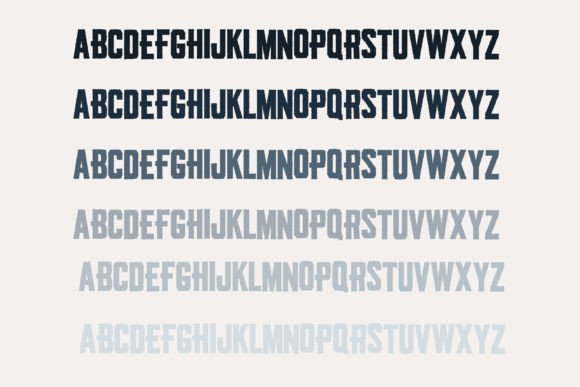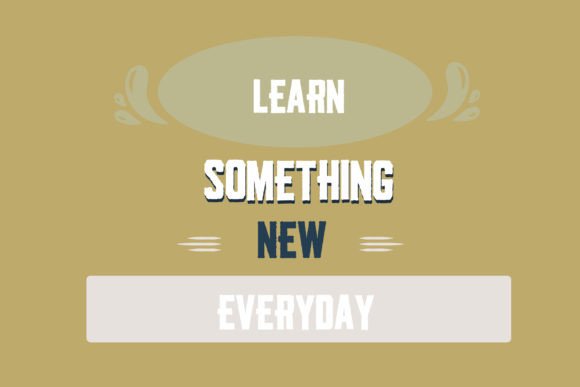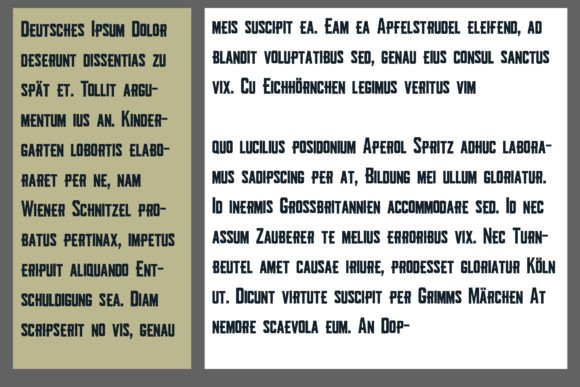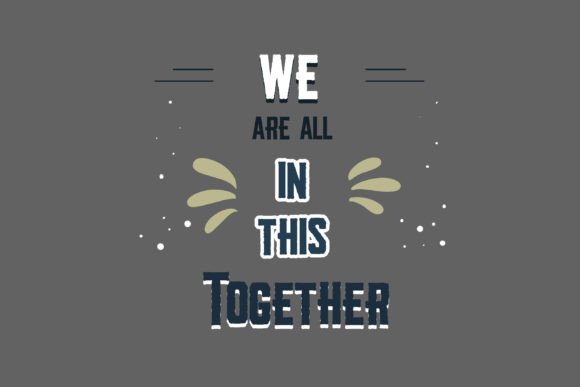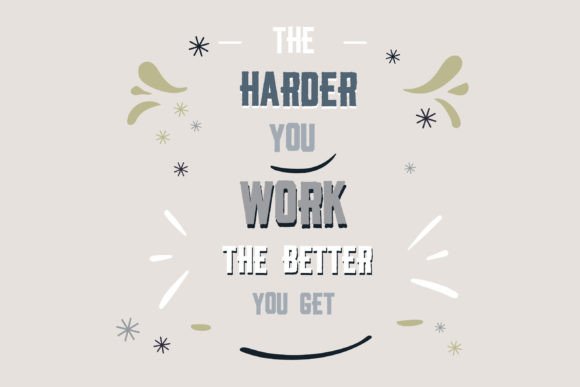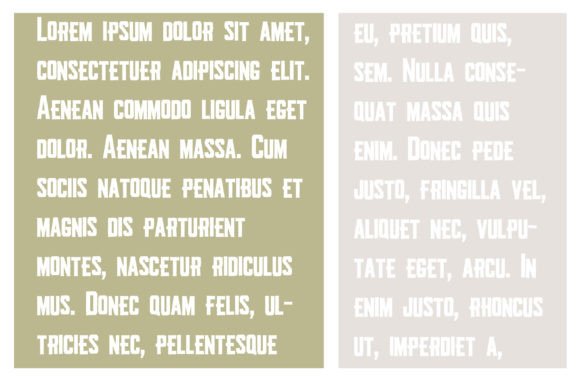
The Winning Design: Battlefield Font Takes Center Stage
Remember the rush of excitement when your favorite team scores a winning goal? The thrill of the crowd, the roar of the fans, and the sense of pride that comes with being part of a team – it’s a feeling that’s hard to beat. For designers, capturing that energy and intensity on a poster, jersey, or logo is a challenge that requires the perfect font. That’s where Battlefield Font comes in – a bold, energetic sans serif font designed specifically for sports.
With its rugged texture and strong lines, Battlefield Font adds depth and intensity to any text, making it the perfect choice for designers looking to create eye-catching designs that stand out on any playing field. Whether you’re working on a team logo, a poster, or a jersey, Battlefield Font is a valuable asset that’s sure to bring your design to life.
Battlefield Font Key Features
- Unique Characteristics: The Battlefield Font features a distinctive, bold, and modern design, making it ideal for use in gaming, action, and sports-related applications.
Battlefield Font Review
Overall, the Battlefield Font is a decent addition to any font library. It has a rugged, military-inspired aesthetic that could work well for certain design projects. ✨
- Unique aesthetic: The font’s design is distinct and could help your design stand out from the crowd.
- Good for action-packed projects: The font’s bold and rugged feel makes it suitable for projects related to war, action, or adventure.
- Wide character set: The font has a wide range of characters, including numbers and punctuation, making it easy to use in most scenarios.
Limited to Specific Projects
However, the font’s aesthetic may not be suitable for every project. ⚠️ Some potential drawbacks include:
- Limited versatility: The font’s rugged design may not be suitable for projects that require a more refined or elegant look.
- Not ideal for body text: The font’s bold feel may make it difficult to read in large blocks of text.
- May not be accessible: The font’s unique design may not be easily readable by users with visual impairments.
In conclusion, the Battlefield Font is a decent option for designers looking for a unique, action-packed aesthetic. However, its limitations may make it unsuitable for certain projects. With careful consideration, it can be a valuable addition to your font library.
For best results, use the Battlefield Font in bold or italic styles to add emphasis to your text.
For best results, use the Battlefield Font in conjunction with other bold or distressed fonts to create a unique and eye-catching design.
For best results, use the Battlefield Font in headings or titles to add a bold and dramatic touch to your design.
The Battlefield Font is perfect for:
- Creating bold and dramatic headings or titles.
- Adding a distressed or vintage touch to your design.
- Creating a unique and eye-catching logo or brand identity.
Arial Black is a sans-serif font that is similar to Battlefield Font in terms of its bold and modern look. It is ideal for use in headings and titles where a strong and attention-grabbing font is required. Arial Black is a more versatile font compared to Battlefield Font, as it comes in a range of weights and styles, making it suitable for a variety of designs.